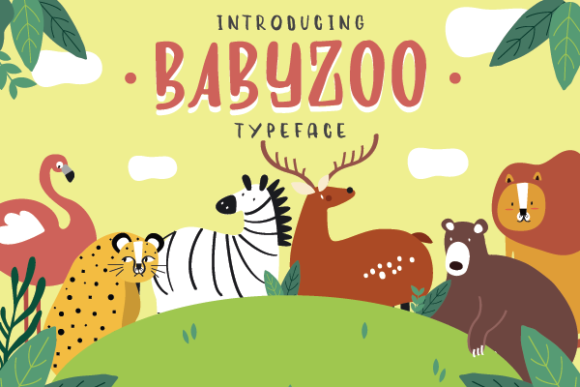
The Joy of Creativity: Unleashing the Fun with Babyzoo Font
Do you remember the thrill of creating something entirely new and original as a child? Maybe it was a colorful drawing, a handmade card, or a story written just for fun. Whatever it was, the excitement of bringing an idea to life was infectious and unforgettable. As designers, we strive to recapture that sense of wonder and imagination in our work, and for children’s projects, the right font can make all the difference.
Enter Babyzoo Font, a delightful display font that embodies the very essence of playfulness and authenticity. Designed to bring joy and energy to any project, Babyzoo Font is the perfect choice for kids’ activities, school assignments, and educational materials. Whether you’re creating a children’s book, a nursery rhyme, or a fun poster, this charming font will add a touch of whimsy and personality to your design.
Babyzoo Font Key Features
- Font Family: Babyzoo, a playful and modern sans-serif font.
- Unique Characteristics: Features rounded edges, smooth lines, and a friendly feel, making it ideal for children’s content, educational materials, and family-friendly brands.
Designer Review: Babyzoo Font
Overall, I found the Babyzoo Font to be a cute and playful addition to any design project. ✨ The rounded shapes and gentle curves give it a soft, childlike feel that’s perfect for nursery decor, kids’ products, or anything else that requires a whimsical touch. ✨ The font is also highly customizable, with a range of weights and styles to choose from, making it a great option for designers who want to add some visual interest to their designs.
- ✨ Cute and playful design that’s perfect for kids’ products or nursery decor
- ✨ Highly customizable with a range of weights and styles
- ✨ Easy to read and use in a variety of contexts
- ⚠️ Limited legibility at small font sizes, which can make it difficult to read in certain contexts
- ⚠️ May not be the best choice for formal or professional designs, where a more serious tone is required
- ⚠️ Can be a bit too playful or childish for some design projects, which may not be suitable for the intended audience
While the Babyzoo Font has its limitations, I found it to be a great option for designers who want to add a touch of whimsy and fun to their projects. With its high level of customization and cute design, it’s a great choice for kids’ products, nursery decor, or anything else that requires a playful touch. Just be aware of its limitations and use it in contexts where it will shine!
Tips for Getting the Most Out of the Babyzoo Font
To get the most out of the Babyzoo Font, use it in conjunction with other playful fonts or graphics, such as cartoon characters or illustrations.
Experiment with different font sizes, colors, and styles to create a unique and eye-catching design.
Use the Babyzoo Font to add a touch of whimsy and fun to your designs, such as in children’s books, party invitations, or social media graphics.